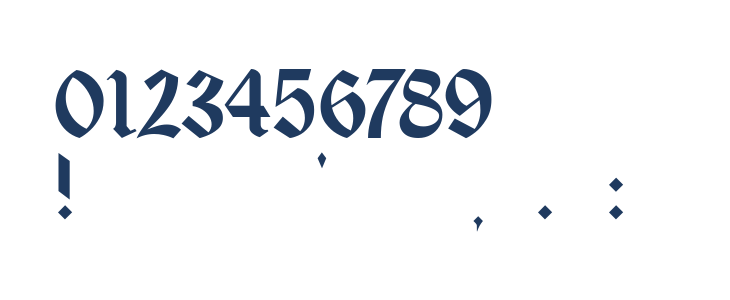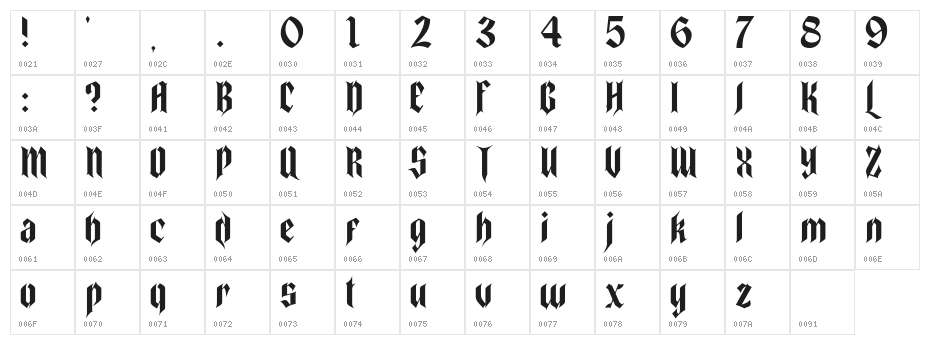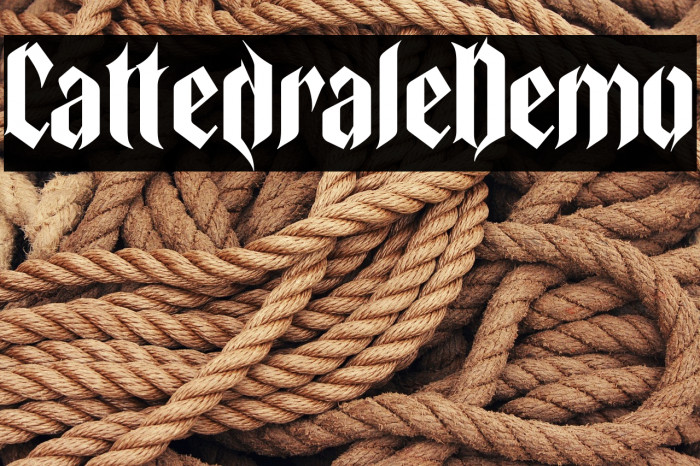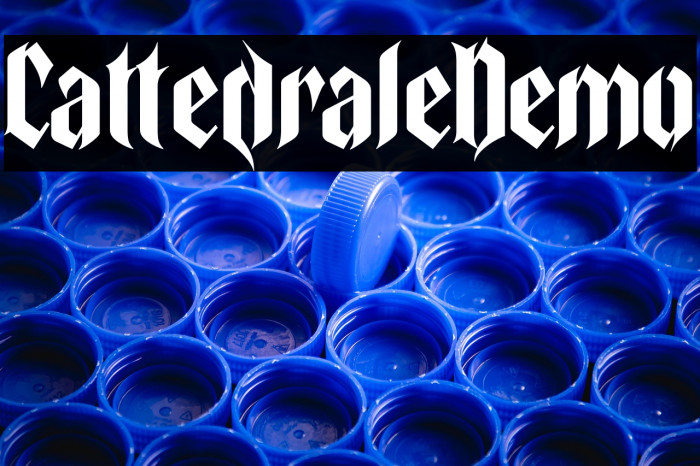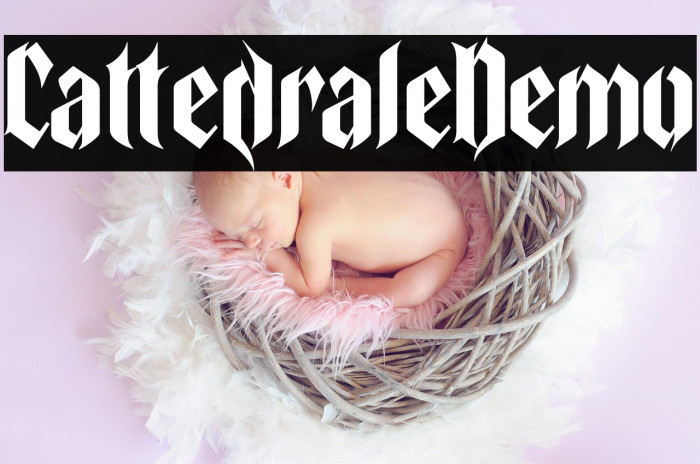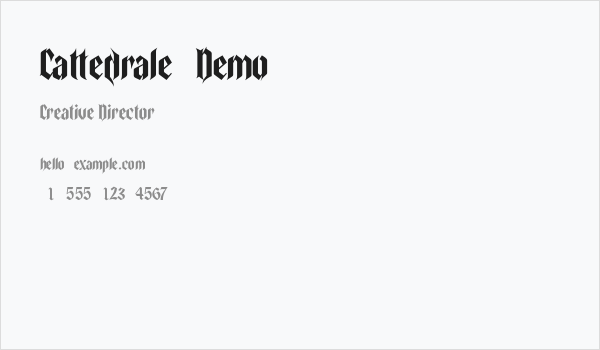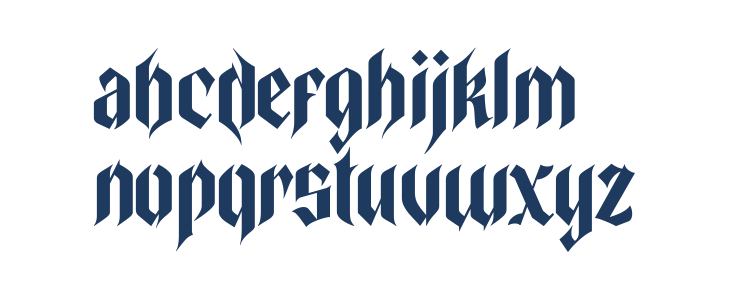
Cattedrale-Demo Font
Cattedrale-Demo Description
This font features a bold and dramatic blackletter style, characterized by its sharp, angular lines and intricate detailing. The uppercase letters are tall and imposing, with a strong vertical emphasis, while the lowercase letters maintain a consistent style with slightly more rounded forms. The numerals are equally bold, matching the overall aesthetic with their distinct, gothic appearance. The special characters are designed to complement the letterforms, maintaining the same level of detail and stylistic consistency. This font evokes a sense of tradition and history, reminiscent of medieval manuscripts and classic calligraphy.